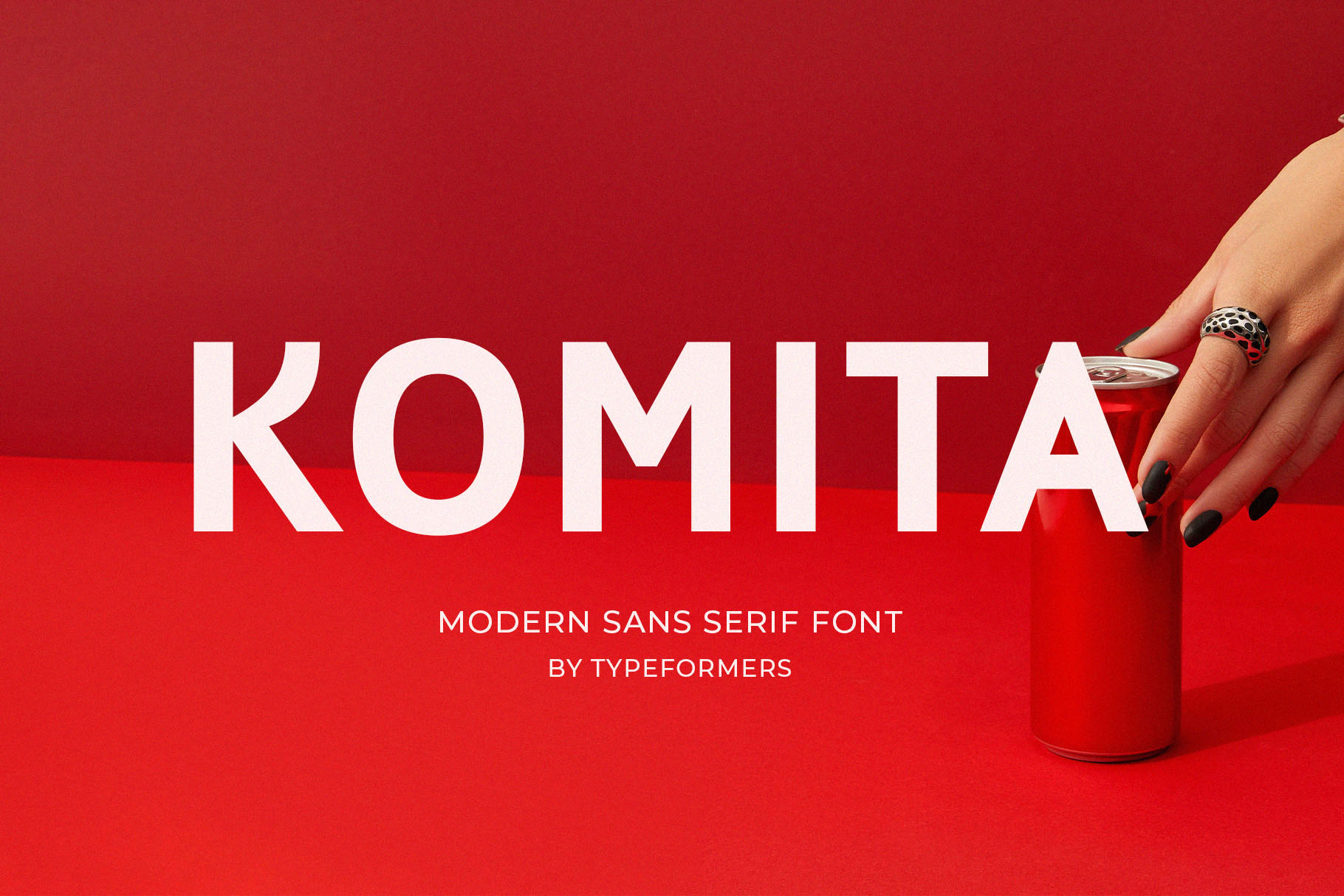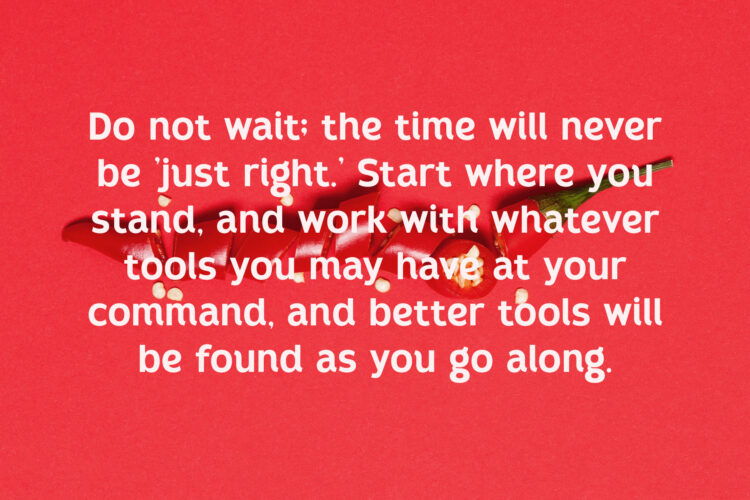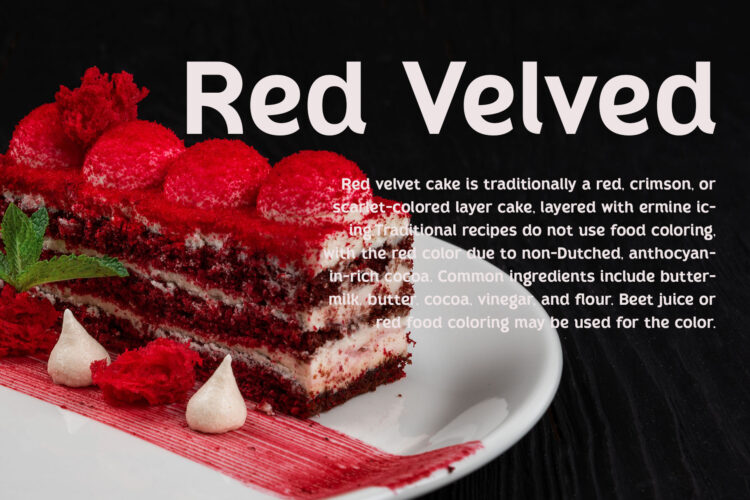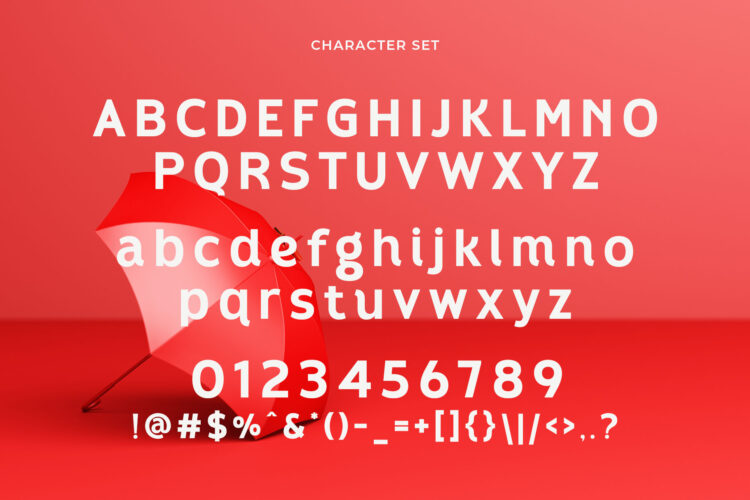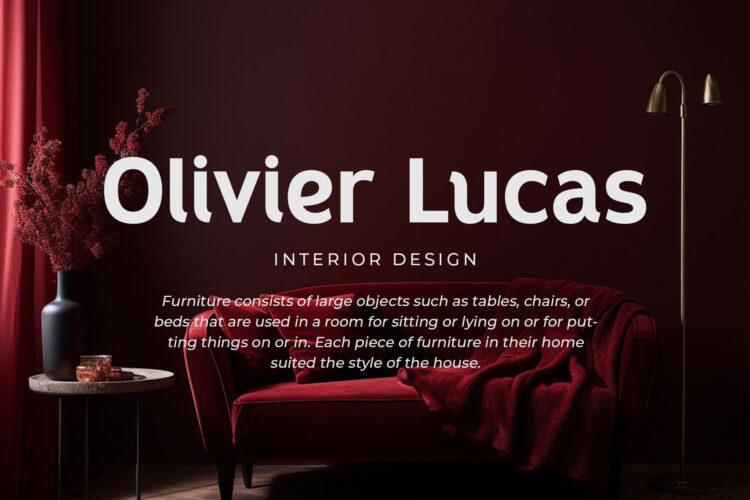
Introducing Komita – Modern Sans Serif.
Komita is a modern and simple font, best used as a display for headings, logos, branding, magazines, product packaging and invitations.
Komita – Modern Sans Serif